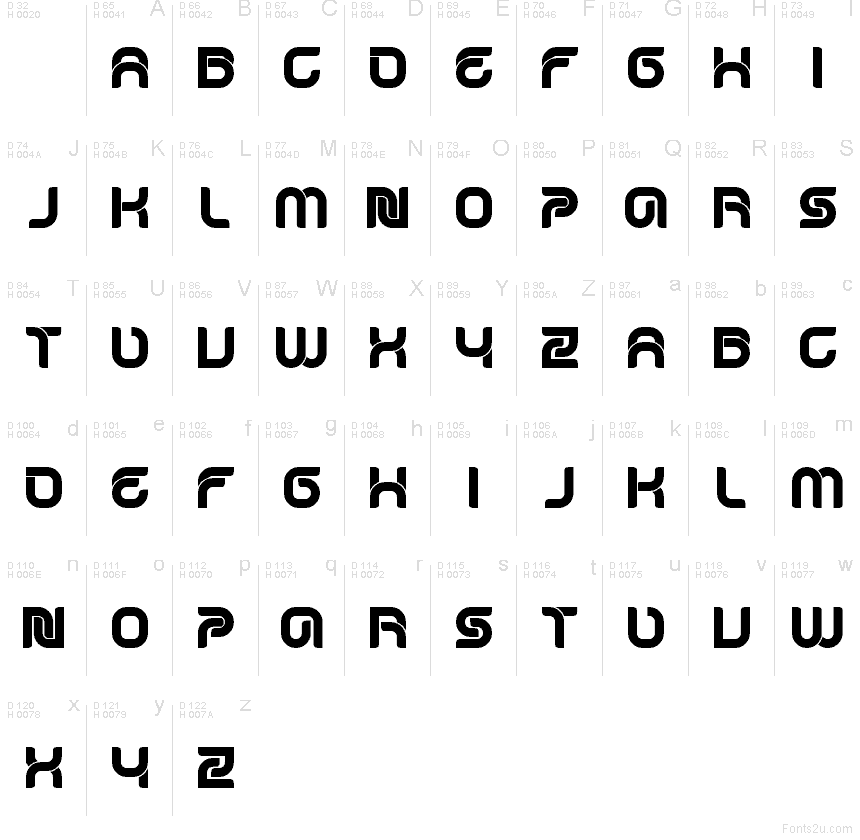
Numbers Book Regular
Numbers Book font by Vladimir Nikolic is a free groovy display typeface with a bold, tubular rhythm that feels both retro and futuristic. Its chunky, rounded forms flow like a continuous neon tube, with crisp cut-in counters that carve bright streaks of negative space through the black shapes. The tight spacing and smooth curves give headlines a rolling, kinetic energy that reads loud and clean even at a glance.
Using Numbers Book, you can bring punchy character to event posters, music and DJ flyers, sci‑fi titles, gaming graphics, bold logos, and eye-catching social media covers. This free font shines when set large, letting those thick strokes and inner cuts do the talking. For supporting text, pair it with a simple geometric sans at smaller sizes to keep the focus on Numbers Book’s strong, grooved silhouette.